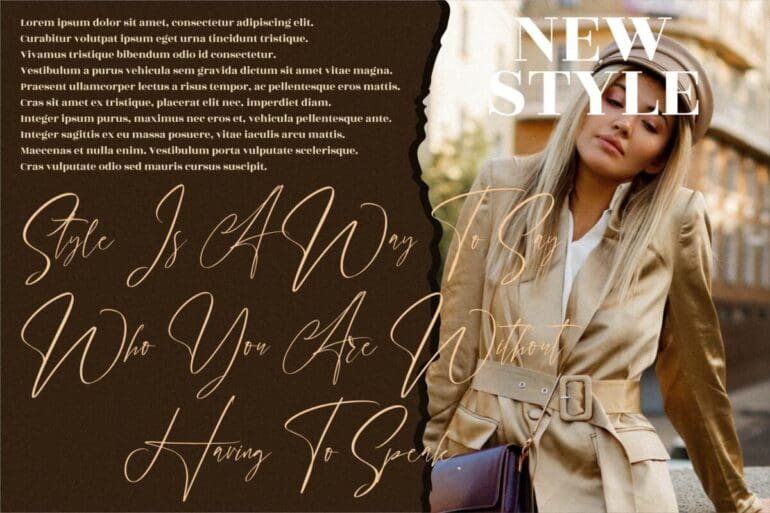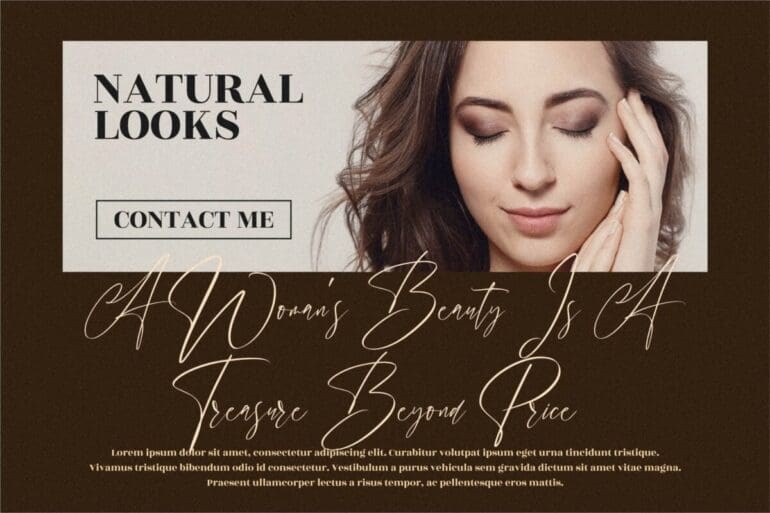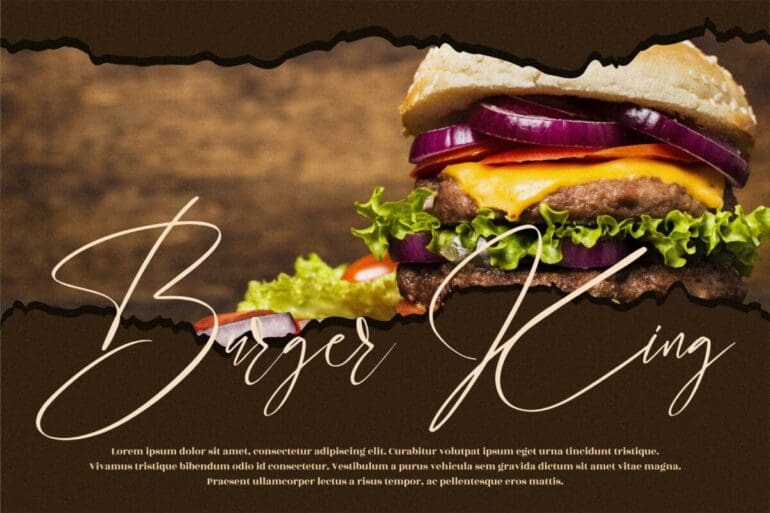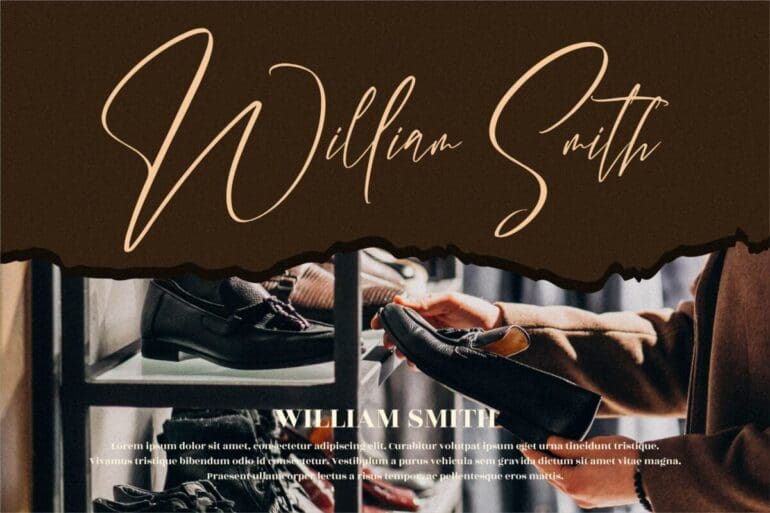
Handover Signature Font
Handover is a beautiful light Signature Font with a unique feel and a stunning impact. It will add a luxury spark to any design project that you wish to create!